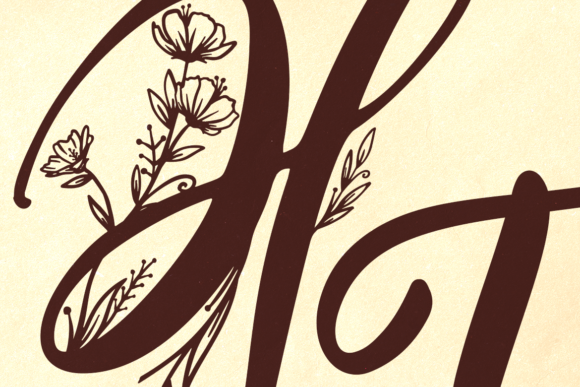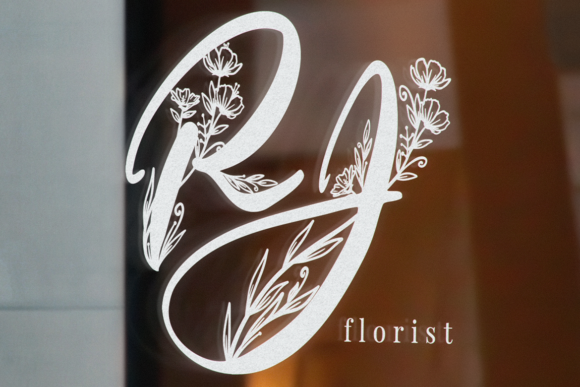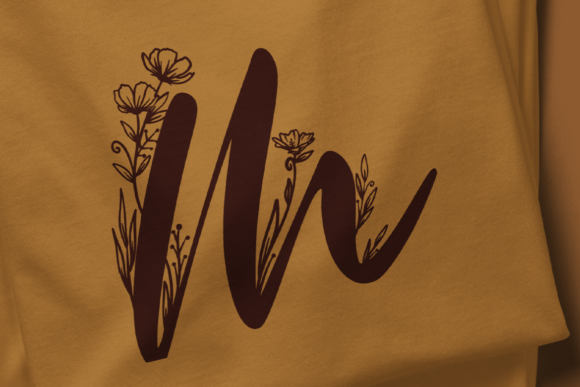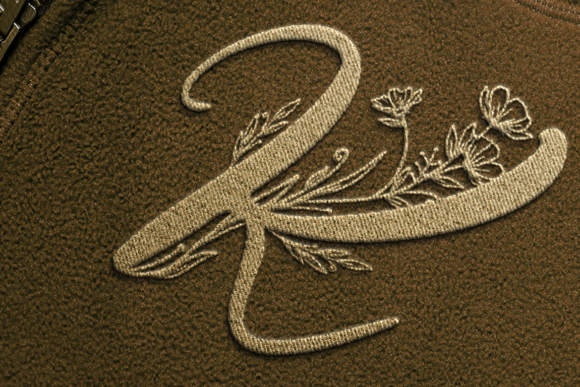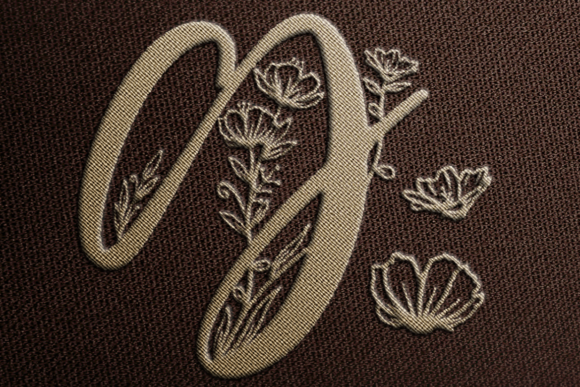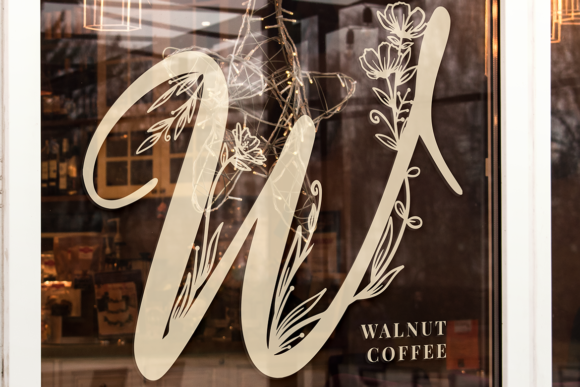
Introducing the Beauty Grow Monogram Font: Elevate Your Designs with Elegance
In the world of typography, few fonts manage to capture the essence of elegance and charm as effectively as the Beauty Grow Monogram Font. This decorative font is not just a collection of letters; it’s an artistic statement that can transform your designs into stunning works of art. Whether you’re a professional designer, a crafty DIY enthusiast, or someone who simply appreciates the beauty of well-crafted typography, the Beauty Grow Monogram Font is sure to captivate you with its unique and authentic feel.
What Makes Beauty Grow Monogram Font Stand Out?
The Beauty Grow Monogram Font stands out for its distinctive monogram style, which is both vintage and modern. Each letter is intricately designed to exude a sense of luxury and sophistication, making it perfect for a variety of creative projects. From wedding invitations and stationary art to social media posts and greeting cards, this font can add a touch of elegance and personalization to any design.
Authentic Feel and Versatility
One of the key features of the Beauty Grow Monogram Font is its authentic feel. Unlike generic fonts that may look artificial or over-styled, this font boasts a genuine vintage charm that is hard to find in modern typography. Its versatility is another significant advantage. The font can be used in various contexts, from formal events like weddings and anniversaries to casual projects such as DIY crafts and personal stationery.
Applications of Beauty Grow Monogram Font
- Wedding Invitations: Create gorgeous wedding invitations that set the tone for your special day. The Beauty Grow Monogram Font adds a touch of romance and sophistication, making your invitations truly unforgettable.
- Stationary Art: Elevate your stationary art with this beautiful font. From letterheads to notebooks, the Beauty Grow Monogram Font can turn ordinary stationery into extraordinary pieces of art.
- Social Media Posts: Make your social media posts stand out with the Beauty Grow Monogram Font. Whether you’re announcing a new product, sharing a special offer, or simply posting a quote, this font can add a touch of elegance to your content.
- Greeting Cards: Create cute and personalized greeting cards for any occasion. The Beauty Grow Monogram Font is perfect for birthdays, holidays, and other special events.
Why Designers and Crafters Love Beauty Grow Monogram Font
Designers and crafters appreciate fonts that are not only beautiful but also easy to use. The Beauty Grow Monogram Font excels in both areas. Its unique design makes it a standout in any project, while its compatibility with various design software ensures that it can be easily integrated into your workflow.
Tips for Using Beauty Grow Monogram Font
- Mix and Match: Don’t be afraid to mix and match letters to create unique monograms. The Beauty Grow Monogram Font is designed to be versatile, so feel free to experiment with different combinations.
- Play with Colors: The font looks great in various colors, so don’t limit yourself to just one. Experiment with different color schemes to find the perfect match for your design.
- Combine with Other Fonts: For added visual interest, try combining the Beauty Grow Monogram Font with other fonts. This can create a beautiful contrast that adds depth to your design.
| Author | colllabstudio |
The Beauty Grow Monogram Font is an incredibly unique and interesting decorative font that can elevate your designs to new heights. Its authentic feel, versatility, and elegance make it a must-have for designers and crafters looking to add a touch of sophistication to their projects. Whether you’re creating wedding invitations, stationary art, social media posts, or greeting cards, this font is sure to impress. So why wait? Fall in love with the Beauty Grow Monogram Font and discover a world of creative possibilities.